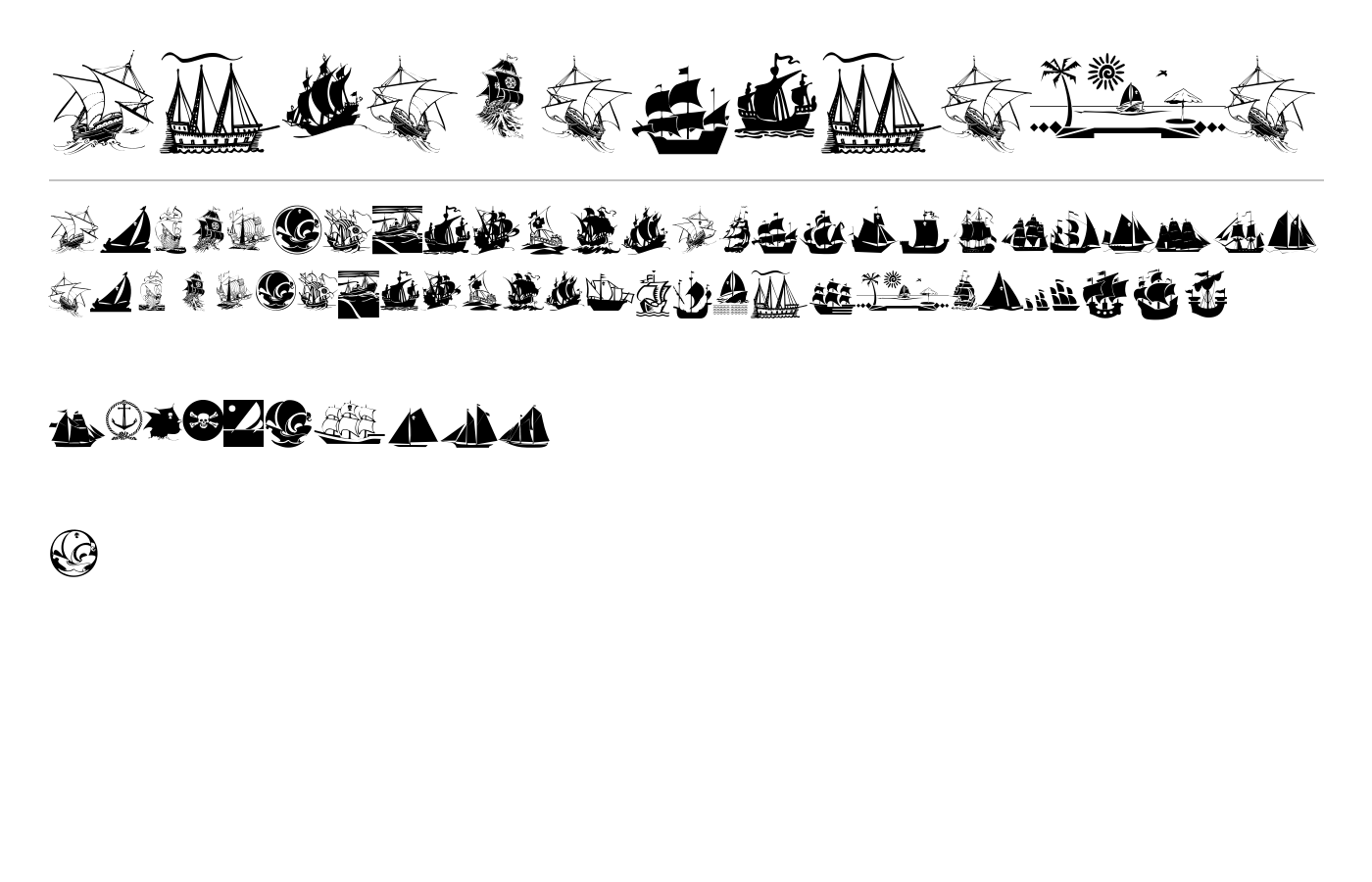
ArmadaPirata is a decorative dingbat font filled with detailed black-and-white pirate and sailing-themed icons, featuring ships, anchors, skulls, and ocean motifs. Its bold, intricate designs make it perfect for adding a vintage nautical flair to invitations, posters, and branding projects related to maritime adventures or pirate themes. This font is ideal for creative display use where distinct, eye-catching imagery is needed to convey a sense of adventure and old-world charm.